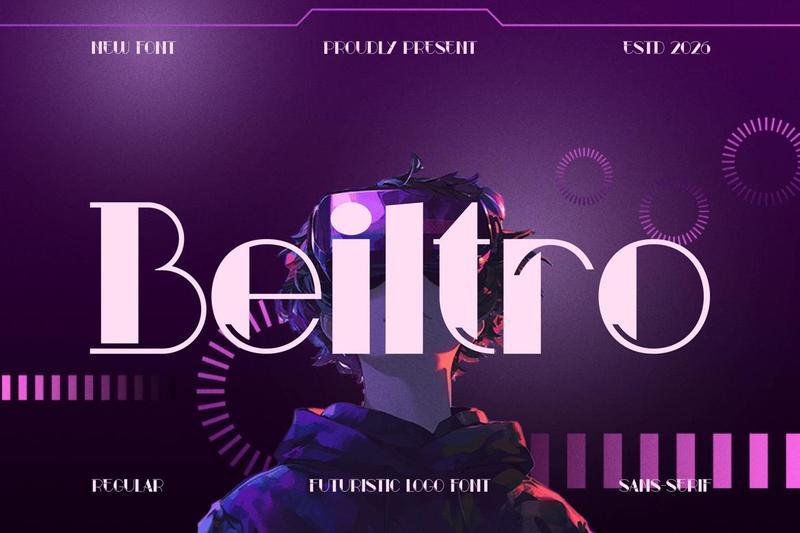
Beiltro – Futuristic Logo Font YDSN4KN
**Beiltro** is a super thick typeface with more traditional letter shapes, making it perfect for creating (or recreating) the concise look of film poster production credits.